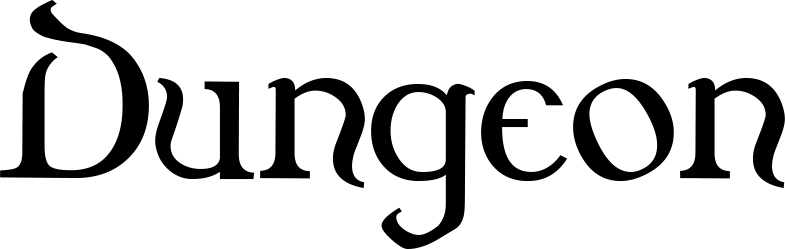
Dungeon Font
Designed bySaesarez Novandito
You should keep at least one Celtic font in your collection for times when you want to add some medieval vibes to your projects. Dungeon, this mystical, eccentric font with those curly characters is that Celtic font that would help you with your Saint Patrick’s Day posters, invitations, stationery, and greeting cards to take them up a notch!